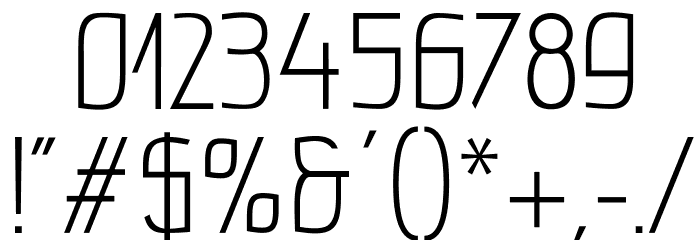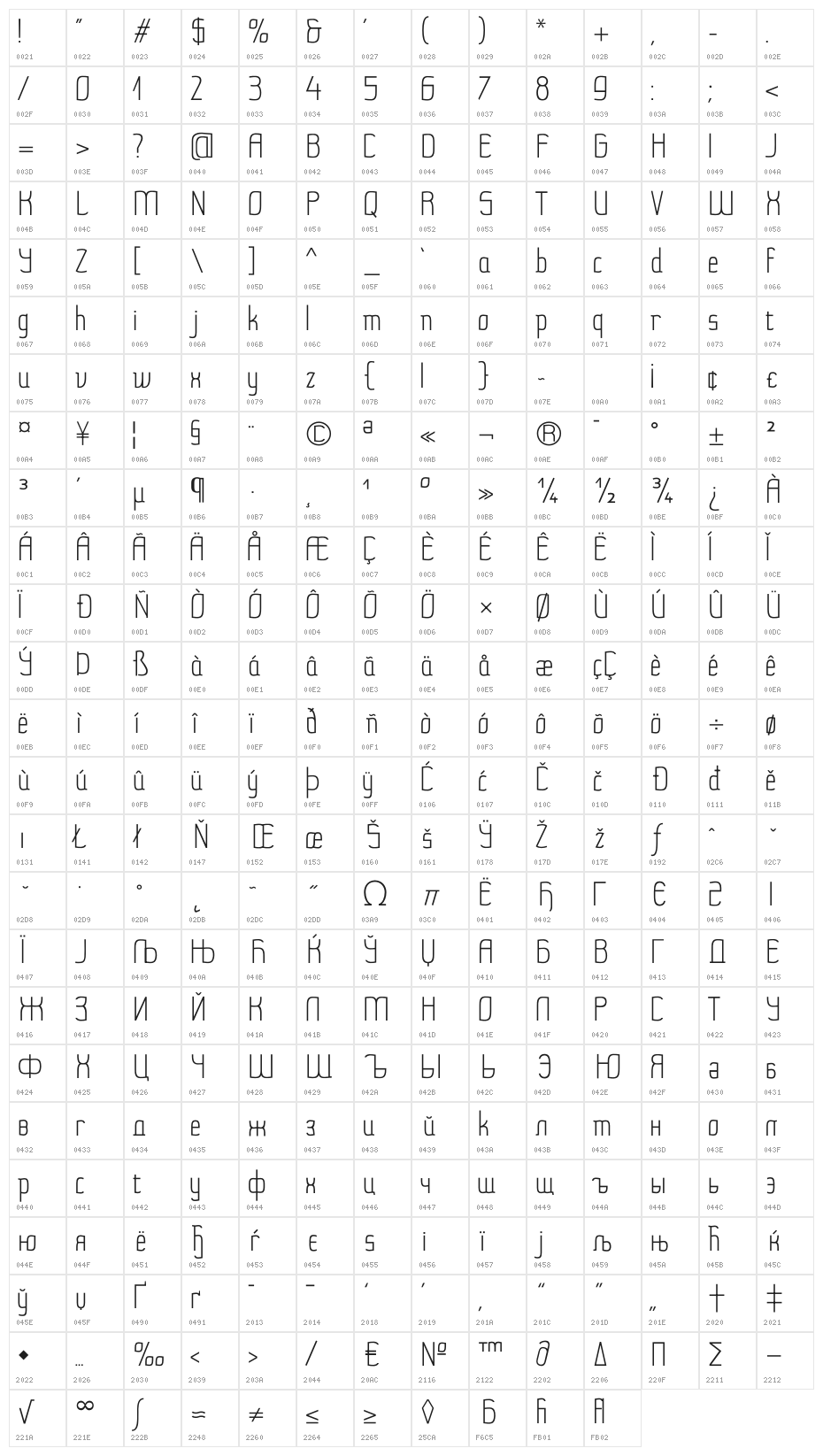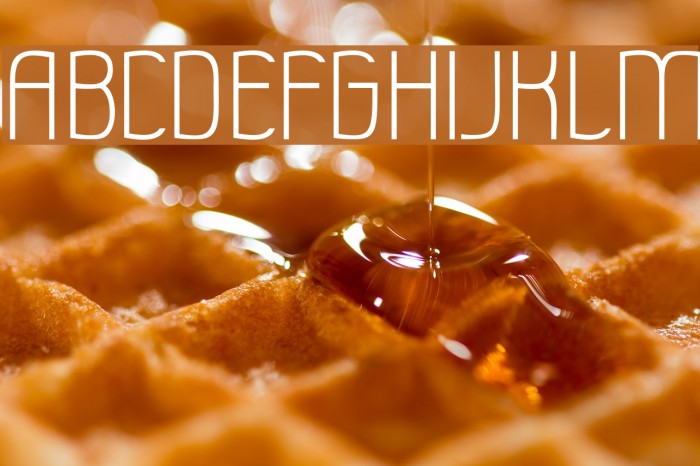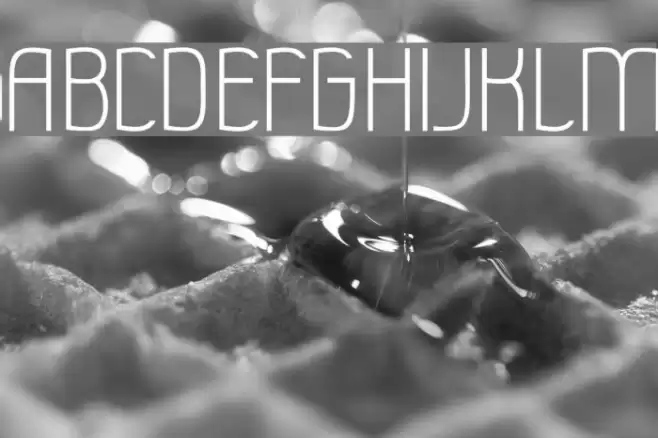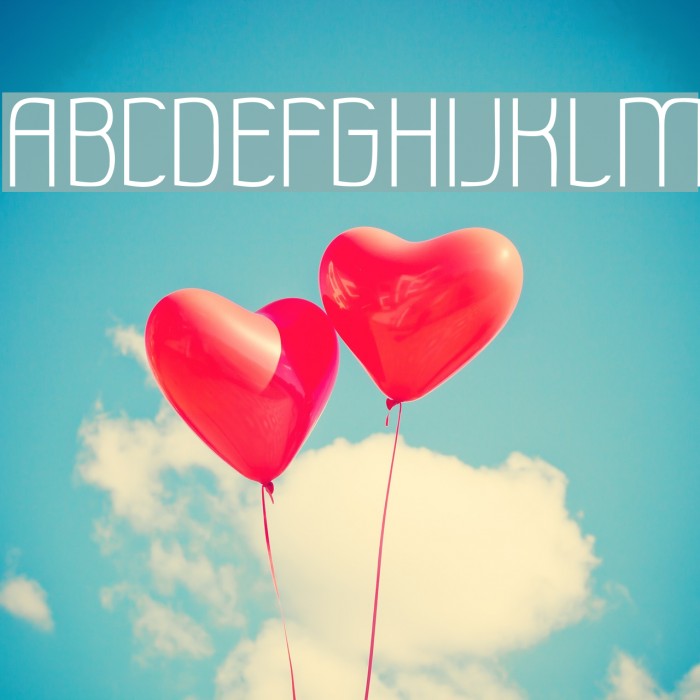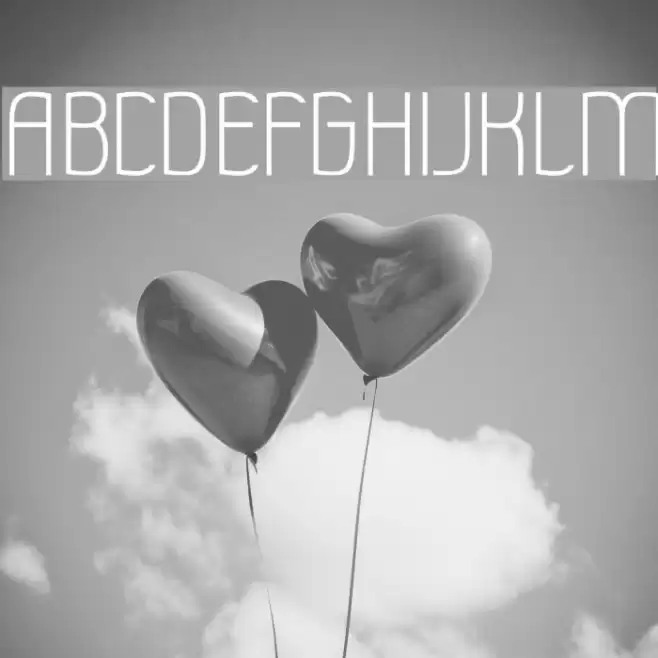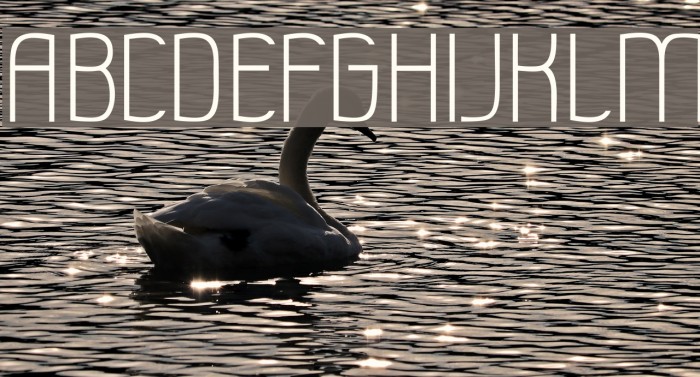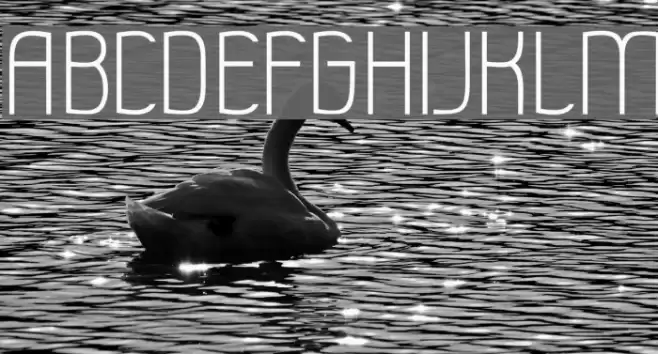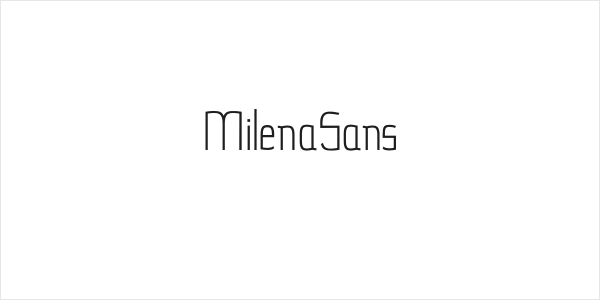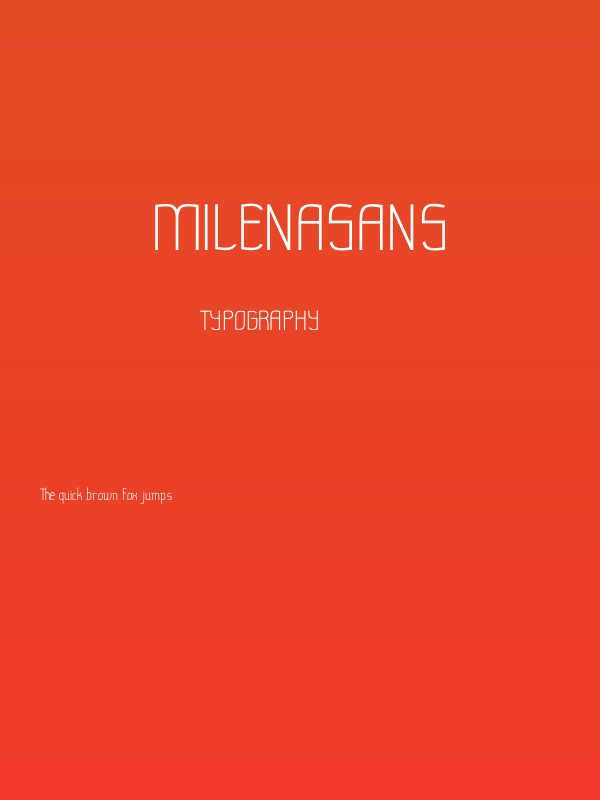
MilenaSans Font
MilenaSans Description
This font features a modern, geometric design with clean lines and a minimalist aesthetic. The uppercase letters are tall and narrow, giving a sleek and sophisticated appearance. The lowercase letters maintain a consistent style, with rounded edges that add a touch of softness to the overall look. The numerals are distinct and easy to read, complementing the alphabetic characters. Special characters are well-integrated, maintaining the font's cohesive style. This font's simplicity and elegance make it versatile for various design applications.